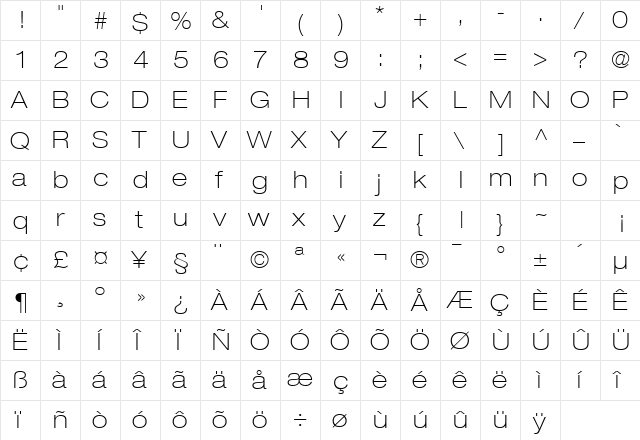
HeaveneticaExtd3 ThinSH
Design Context for HeaveneticaExtd3 Typeface
HeaveneticaExtd3 is a composed and adaptable typeface that performs quietly and consistently across a wide range of design contexts. The delicate stroke weight brings airiness and refinement to layouts.